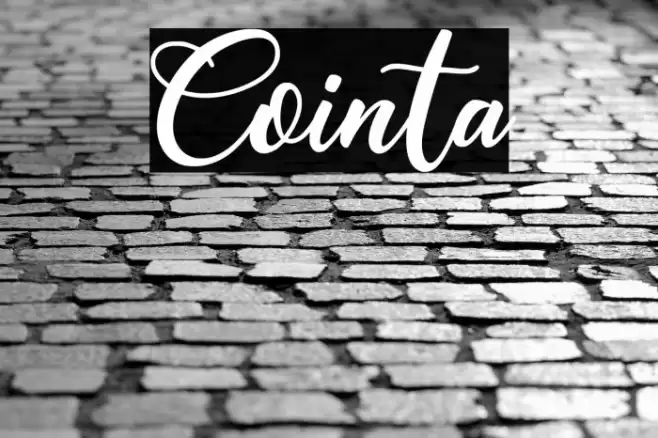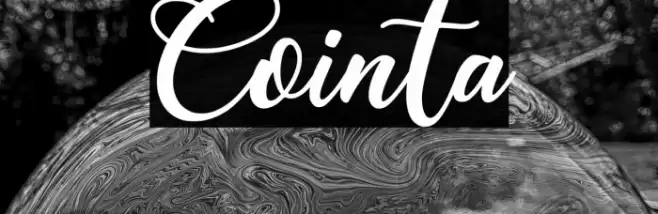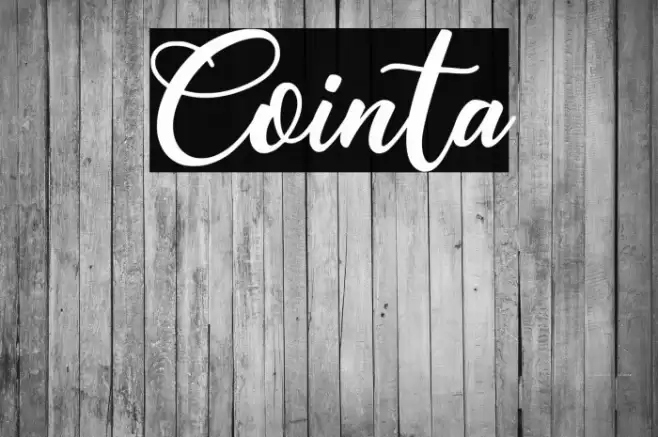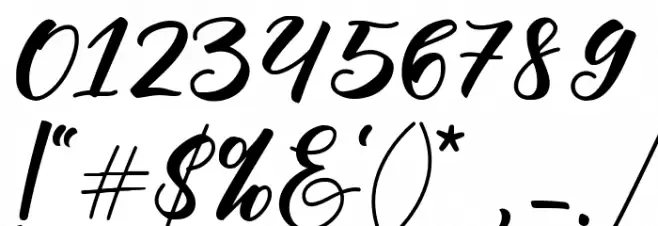
Cointa Font
Cointa Description
This font features an elegant and flowing script style, characterized by its ornate and decorative letterforms. The uppercase letters are particularly elaborate, with intricate loops and swirls that give a sense of sophistication and flair. The lowercase letters maintain a cohesive style, with smooth, connected strokes that enhance readability while retaining a stylish appearance. The numerals and special characters are designed to complement the overall aesthetic, ensuring consistency across all elements. This font's artistic nature makes it suitable for projects that require a touch of elegance and creativity.
An elegant and ornate script font with flowing, decorative letterforms from Uncategorized fonts.